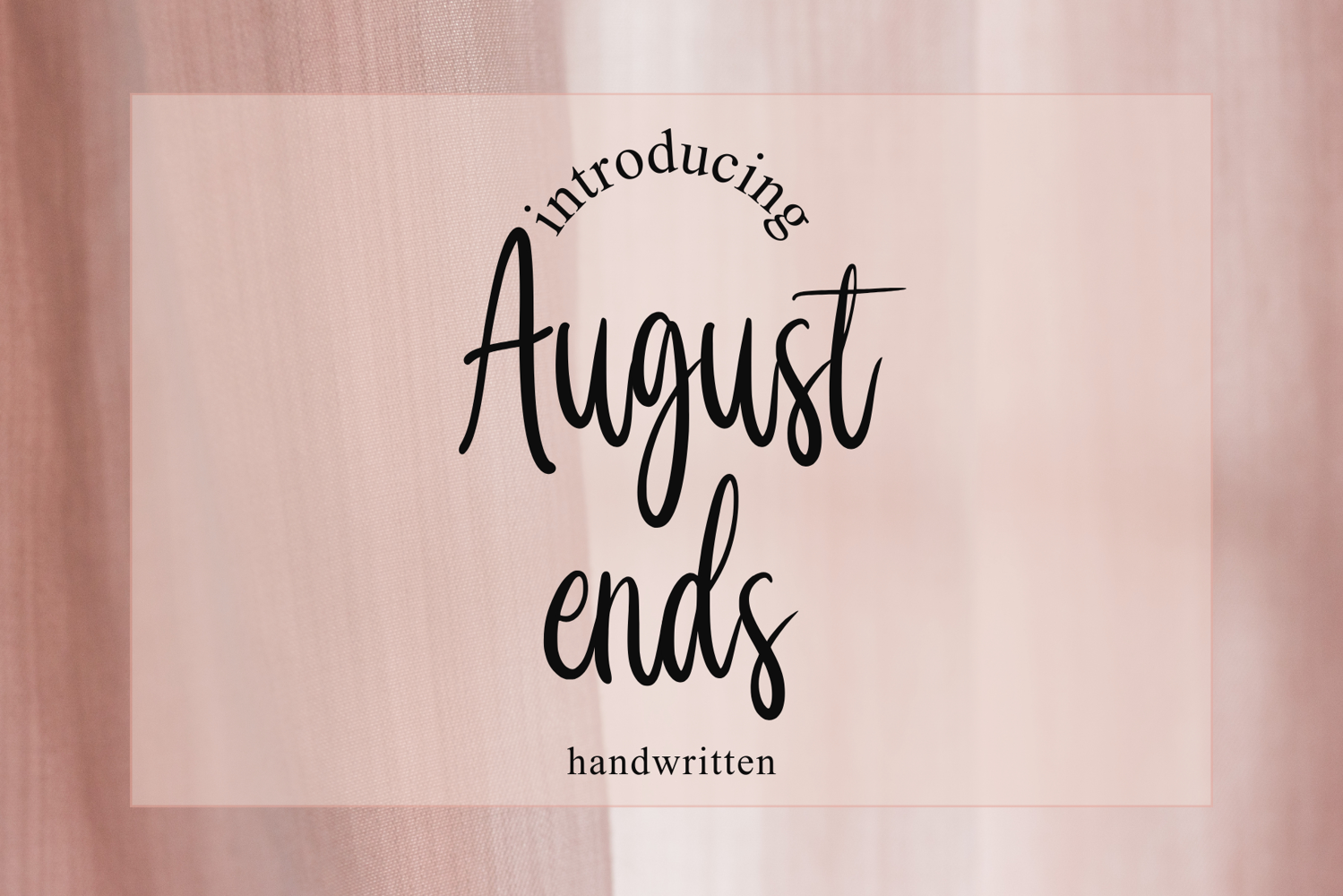
Created By Coretanletter
August Ends
AugustEnds
"August Ends" is a versatile typeface that captures the essence of late summer. This font combines simplicity with elegance, offering both a clean, straightforward style and a fluid, script option. Perfect for adding a touch of sophistication to your projects, "August Ends" is ideal for everything from privat invitations to professional branding. Embrace the calm and transitional feel of August with this beautifully crafted font.